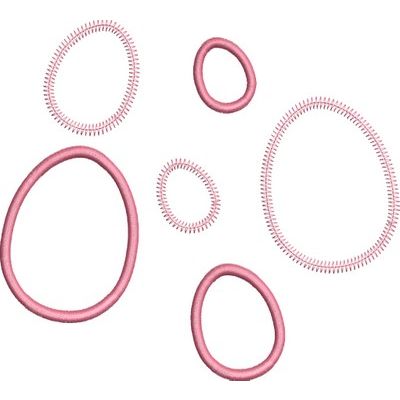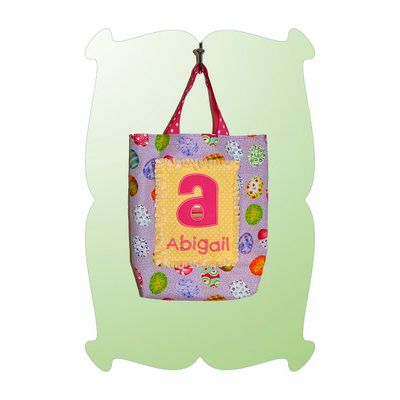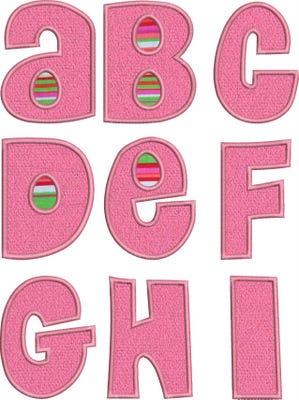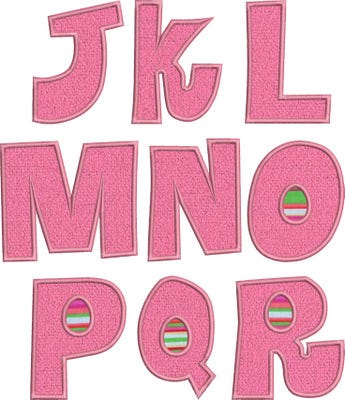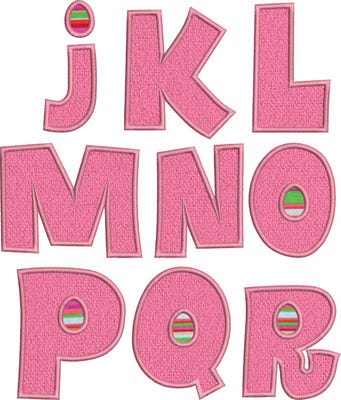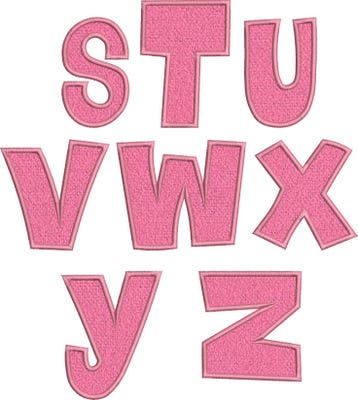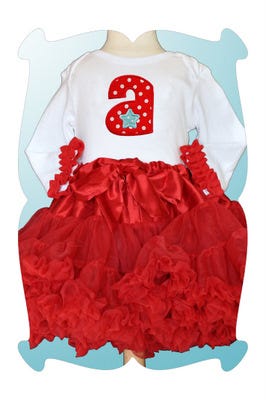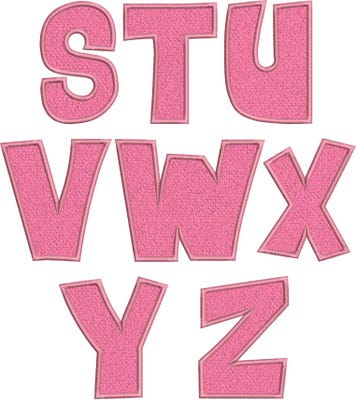
Easter Egg Satin Stitch Applique Monogram Embroidery Font
Easter Egg Applique Font
2 finishing styles: satin, zig zag
Upper case letters A thru Z. Lower case letters a thru z.
I love this Easter Egg Applique Font!
It's a fun look on Onesies and T-shirts....
Also fun on Easter tote bags...
just in time for hunting Easter eggs.
You can applique the Easter egg as shown in the photo above and below....
...or you can cut out the Easter egg, which is a fun look too.
It's a great way to mix up the look of this font.
The Easter Egg Applique Font includes applique letters in two styles:
1. Traditional satin stitches.
2. Quick and easy zig zag stitches.
Please Note: This appliqué includes upper case letters in sizes 3.5, 4.5 and 5.5 inches. The lower case letters are sized to coordinate with the upper case. However, this is a "wonky" font and some of the upper case as well as the lower case letters are different than a standard upper or lower case (please see photos below). All upper case designs are sized to coordinate with the lower case designs, even if some of the letters appear to be the same. For example: the upper and lower case letter "a" are the same design, however the lower case letter is smaller than the one in the upper case. The "wonky-ness" of the font is such an adorable look, I think you will love it. :)
This font includes "wonky" upper case letters in 3 sizes: 3.5, 4.5 and 5.5 inches.
Also included are "wonky" lower case letters in 3 sizes to coordinate with the upper case letters.
And you also get 3 sizes of Easter eggs (1.3, 2, and 3 inch) for appliqueing onto shirt sleeves and pant legs.
Also great scattered onto pillowcases, towels and more!